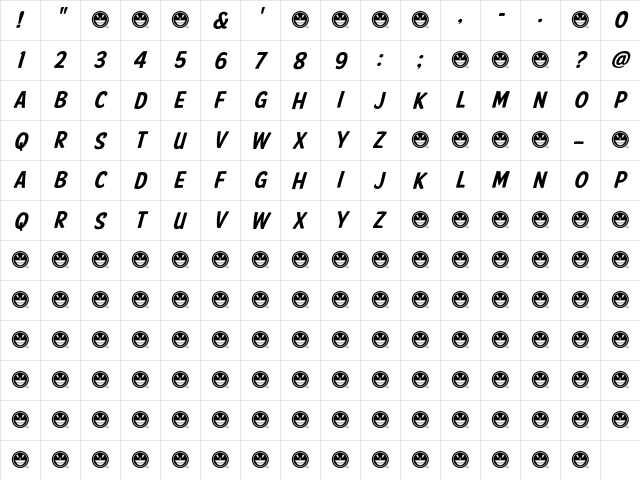
American Purpose Casual 02 Regular Font Preview
American Purpose Casual 02 Regular
American Purpose Casual 02 Regular Font Details
Design Context for American Purpose Casual 02 Typeface
American Purpose Casual 02 is a composed and adaptable typeface that performs quietly and consistently across a wide range of design contexts.
Pro Tip: Use American Purpose Casual 02 in both headline and body roles to test its range before committing to a single application.